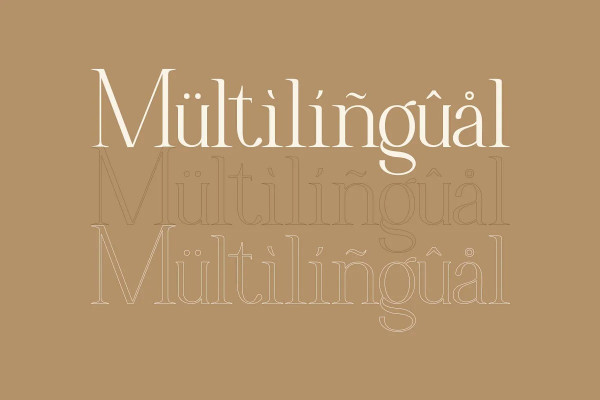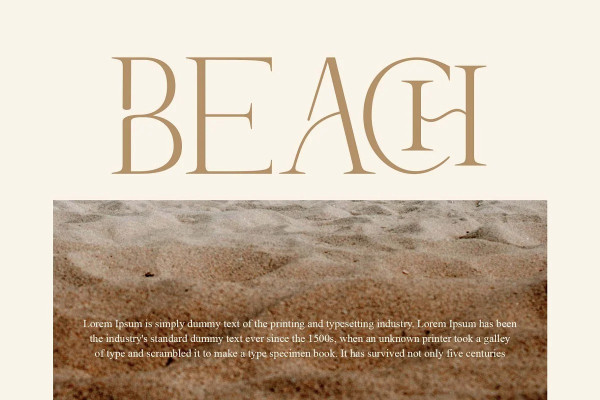
Hisav Font
Hisav Font – Modern Serif Font, wedding font, branding font, boho font, canva font, procreate font, cricut font, logo font, sans serif, invitation font, our latest creation, modern serif with various alternates and ligatures, multilingual support, an updated blend of bohemian style, suitable for branding, business, logos, magazines, and others